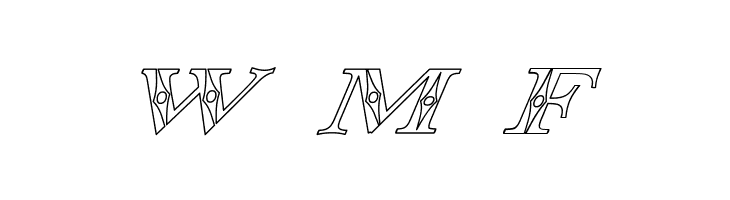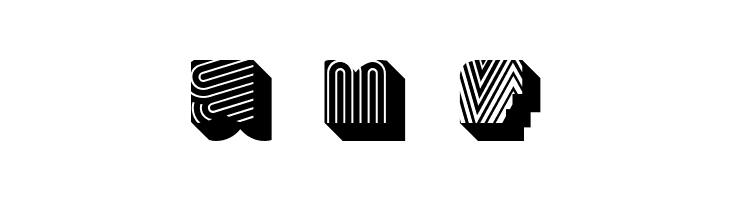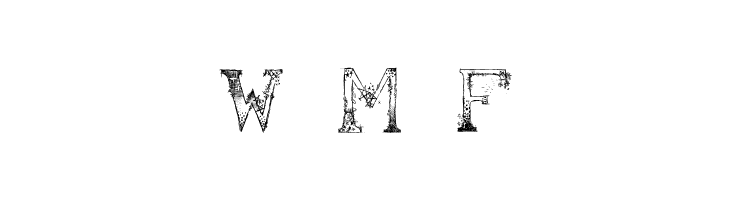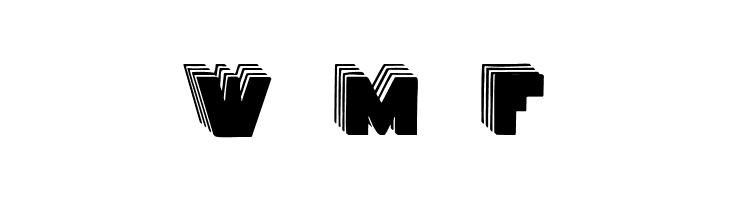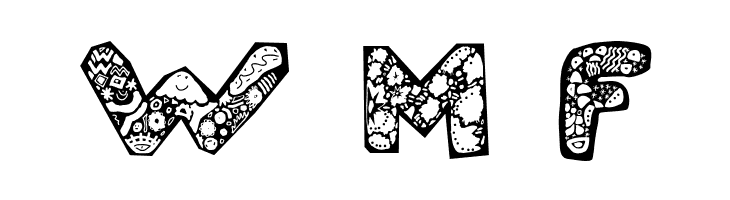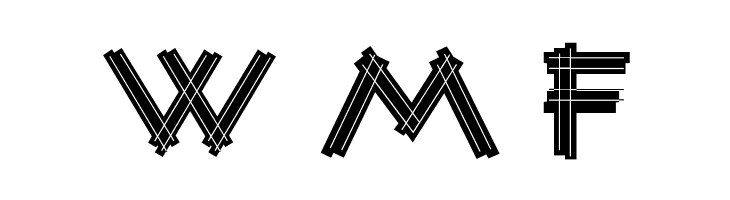
An elegant italic outline font with a sophisticated and artistic style.
A bold, decorative font with intricate patterns and 3D shadow effects.
A bold, three-dimensional font with a layered, geometric style.
A bold, decorative font with intricate patterns and playful doodles.
A bold, geometric font with a modern inline style and industrial feel.
A bold, decorative font with vintage woodcut-style detailing and ornate flourishes.